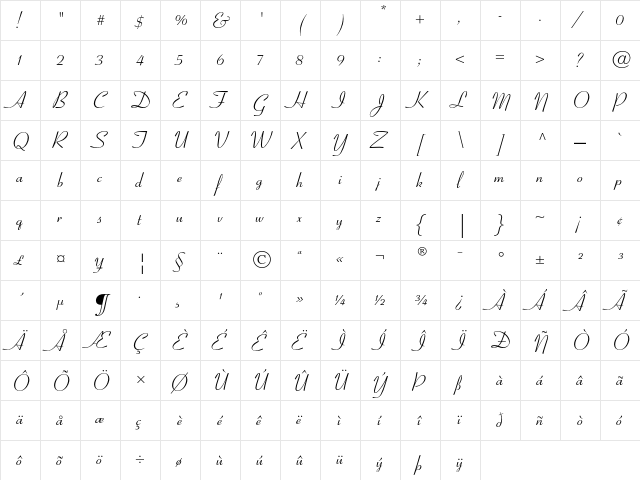
Coronet Regular
Design Context for Coronet Typeface
Coronet is a composed and adaptable typeface that performs quietly and consistently across a wide range of design contexts.